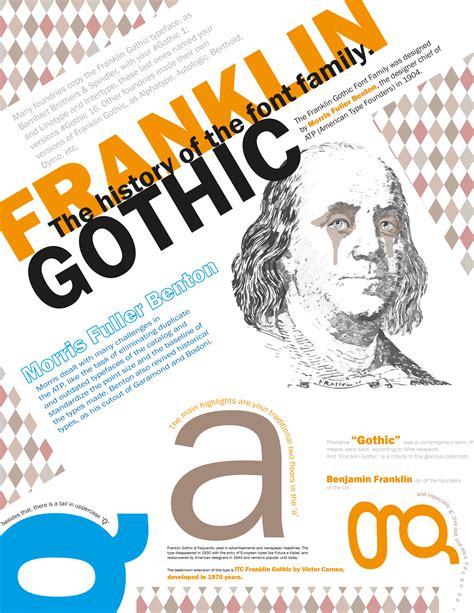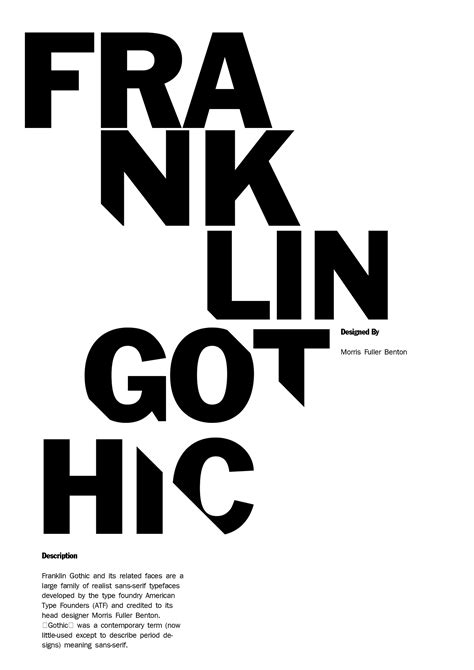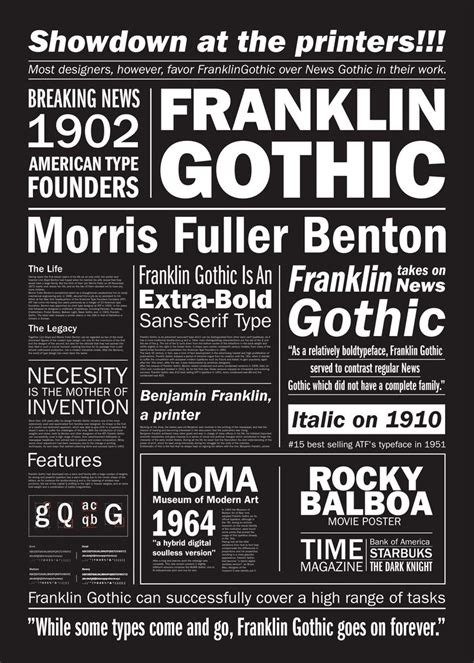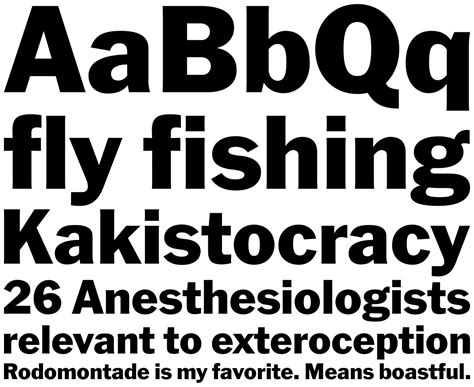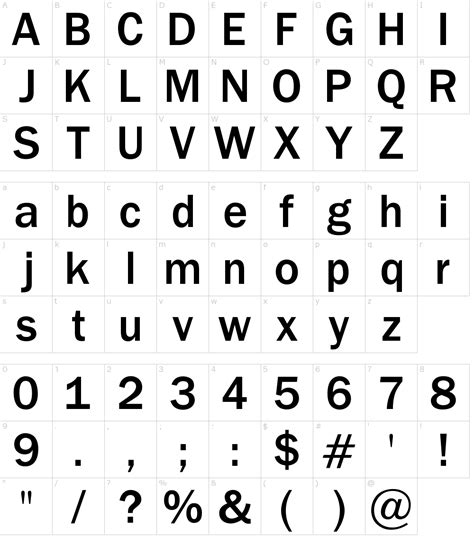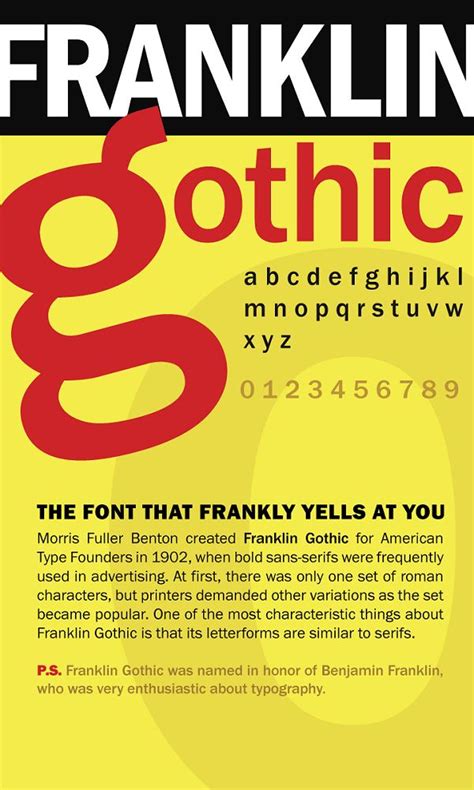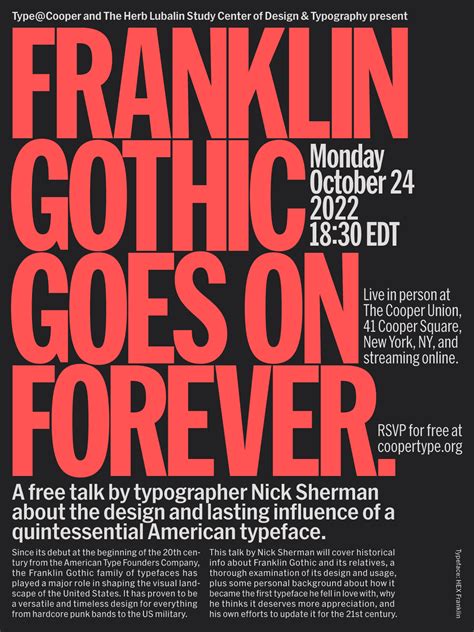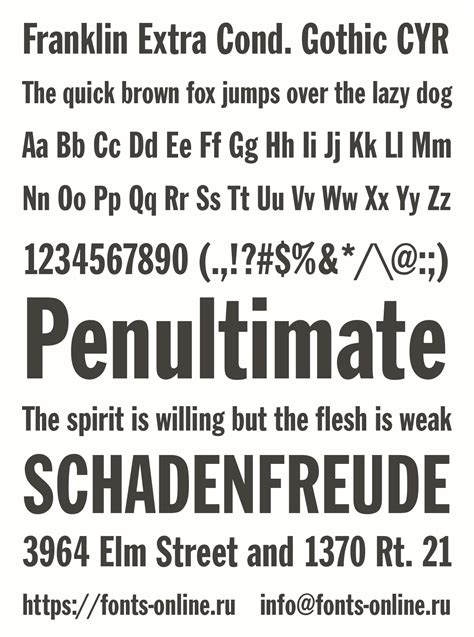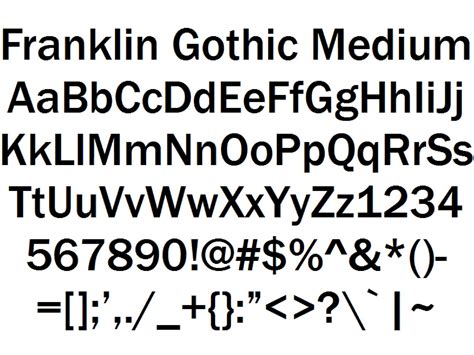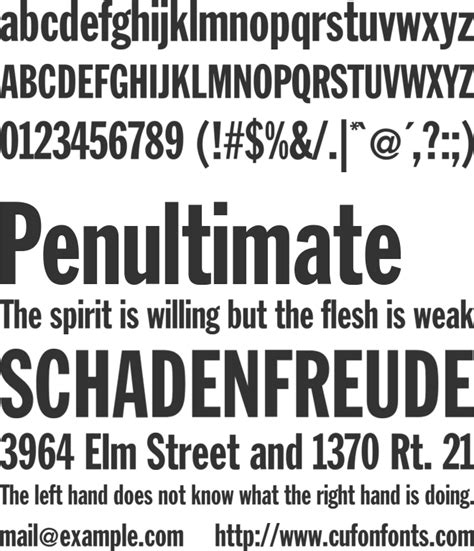
FRANKLIN GOTHIC FONT
Franklin Gothic Font: A Guide for Designers
The Franklin Gothic font is a classic and widely recognized sans-serif typeface that has left an indelible mark on the world of typography. This font, designed by Charles Baskerville and Bernard Stein, has a rich history dating back to the early 20th century. Its development was a significant milestone in the evolution of modern typefaces, offering a clean and contemporary aesthetic that quickly gained popularity.
The font's design is characterized by its simplicity and readability, making it highly versatile. Its clean lines and sharp edges provide excellent legibility, ensuring that text remains clear and easy to read even at small sizes. This characteristic has made it a favorite for various applications, from print media to digital interfaces.
One of the key benefits of the Franklin Gothic font is its ability to convey a sense of authority and elegance. Its neutral and understated style allows it to complement a wide range of content, from corporate logos to book covers and even fashion labels. This versatility has contributed to its enduring popularity and widespread use across different industries.